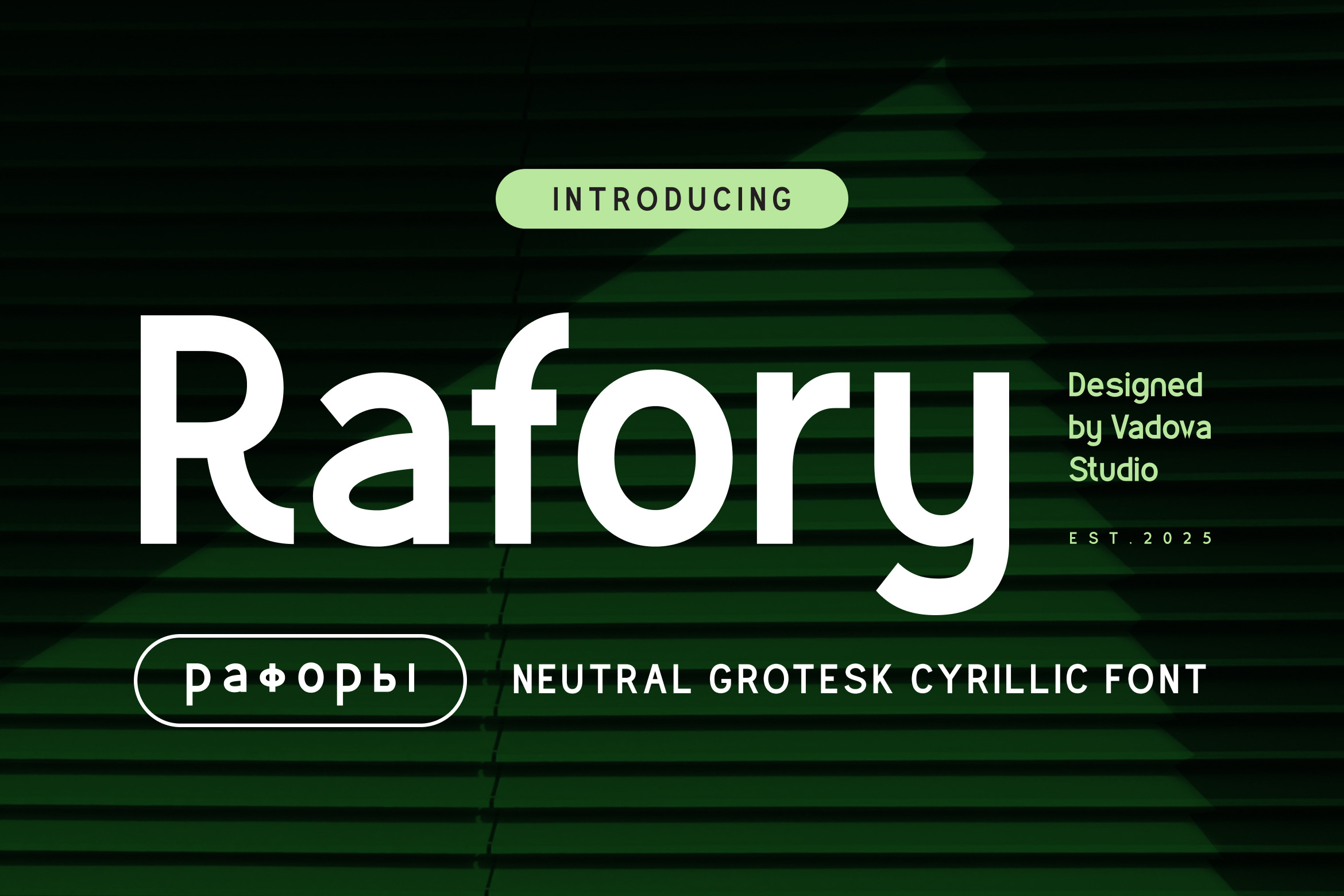
Rafory Grotesk Cyrillic Font
Rafory is a neutral grotesk typeface that embodies the quiet power of thoughtful design. Crafted with precision and purpose, Rafory draws its strength from its clarity offering designers a timeless sans serif with a graceful geometric structure and full multilingual capability, including Cyrillic support. Its clean, rounded terminals and even stroke contrast reflect a modern, universal appeal that feels both familiar and refreshingly restrained.
What sets Rafory apart is its subtle humanism. Though grounded in functional grotesk tradition, its proportions and letterforms have been meticulously softened to communicate calm and elegance without sacrificing readability or authority. The lowercase “a” and “g” have open forms that balance friendliness with minimalism, while the “R” and “y” inject style into an otherwise neutral tone. This makes Rafory ideal for brands that aim to be seen as modern, refined, and globally accessible.
- Neutral grotesk design with softened geometric structure
- Subtle humanist details in character shapes for warmth
- Rounded terminals and smooth curves for legibility
- Consistent vertical stress with clean line weight
- Ideal spacing for both display and body text readability
- Brand identity systems seeking a calm yet professional tone
- UI/UX design templates for modern tech products and mobile apps
- Editorial magazines and minimalist book layouts
- Product packaging and label design for clean aesthetics
- Social media templates and digital marketing kits with restrained elegance
- Full Cyrillic and Latin multilingual support